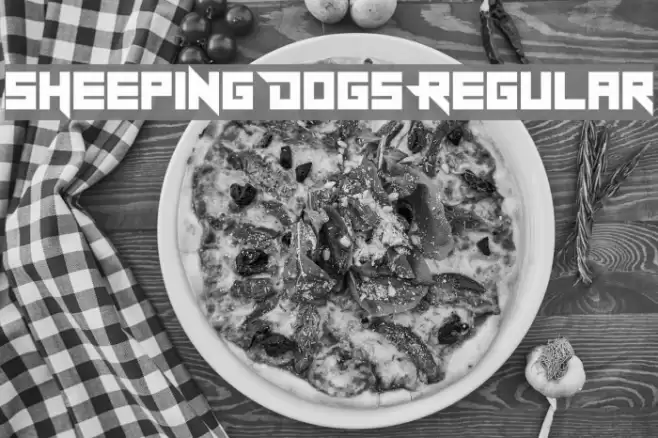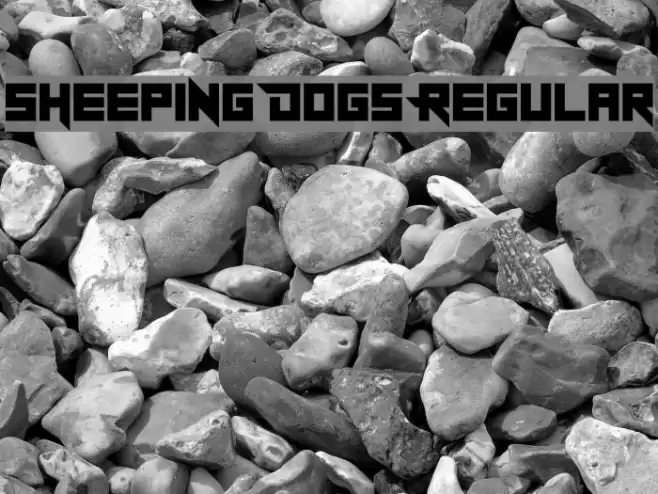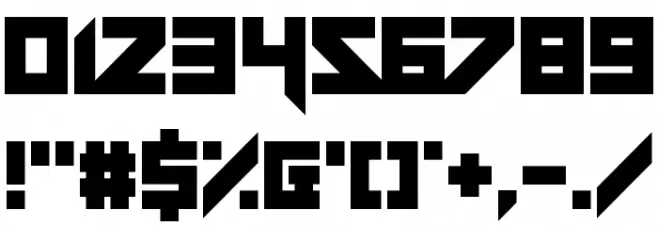
Sheeping Dogs Regular Font
Sheeping Dogs Regular Description
This font features a bold, geometric design with sharp angles and a blocky appearance. Each character is constructed with a consistent thickness, creating a uniform and cohesive look. The uppercase and lowercase letters maintain a similar structure, emphasizing the font's modern and edgy aesthetic. The numerals and special characters follow the same design principles, ensuring a seamless integration across all text elements. This font's unique style makes it stand out, offering a futuristic and dynamic feel.
A bold, geometric font with sharp angles and a modern aesthetic from Uncategorized fonts.
- Proposed Projects: Ideal for video game titles, tech branding, posters, and futuristic designs.